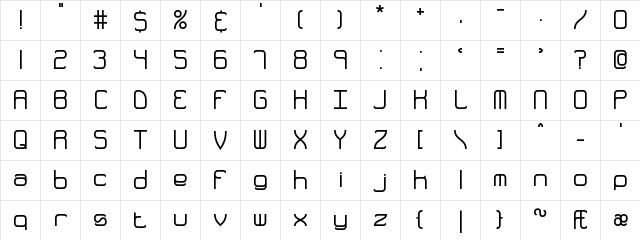
Quarterly Thick BRK Normal
| Foundry | ƎIGMA FONTS |
| Designer | ƎIGMA FONTS - Brian Kent |
Design Context for Quarterly Thick BRK Typeface
Quarterly Thick BRK offers clean, dependable letterforms without strong stylistic allegiance, making it a practical choice for designers who need flexibility.